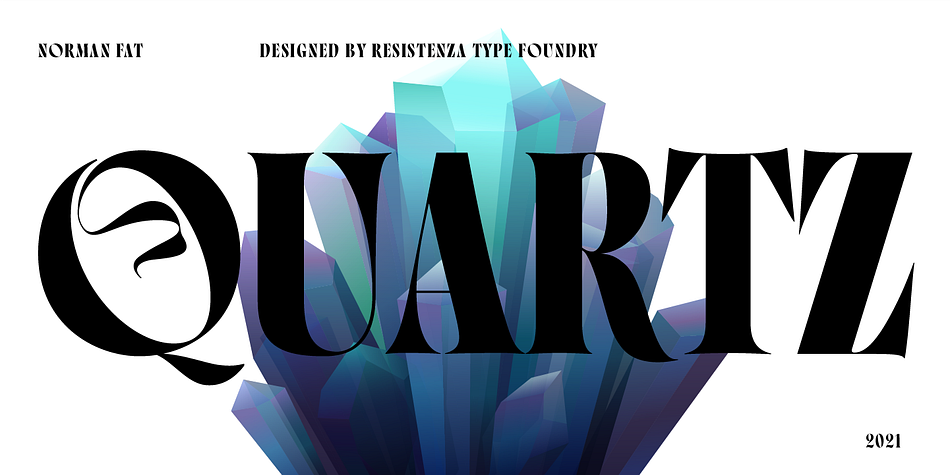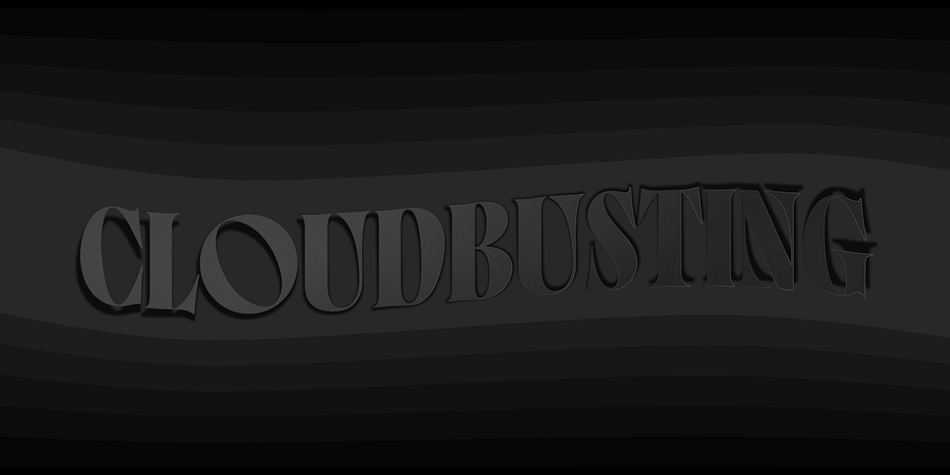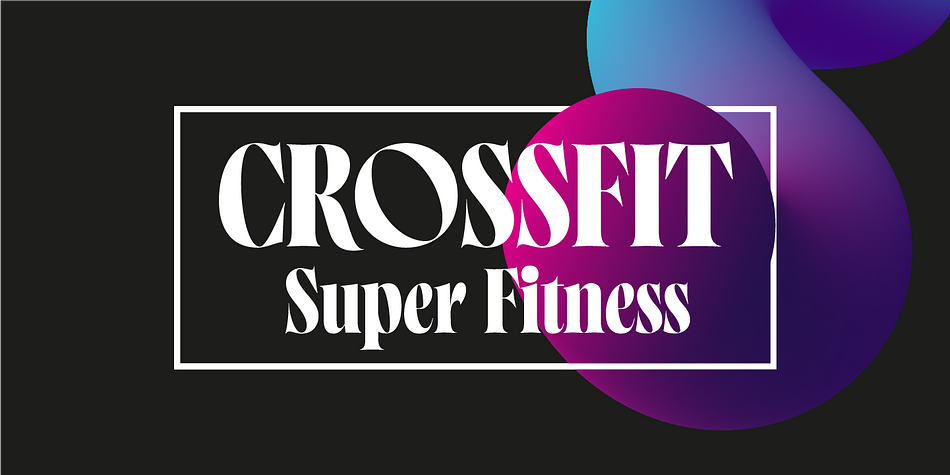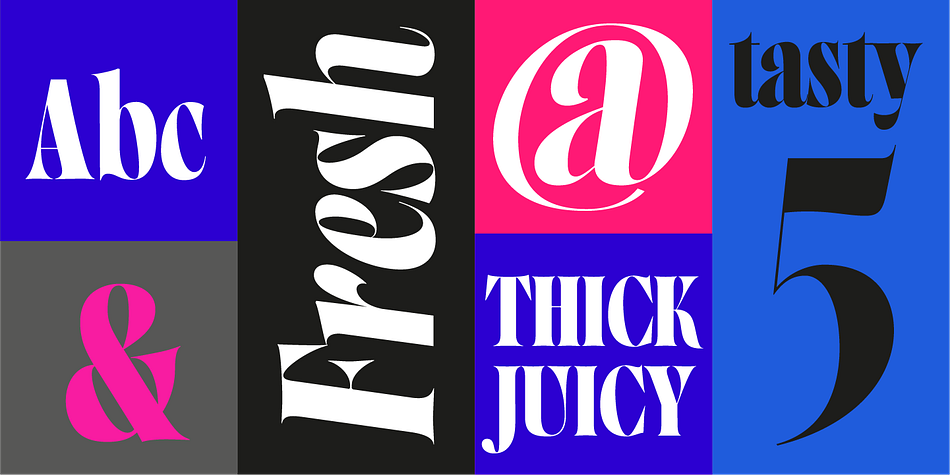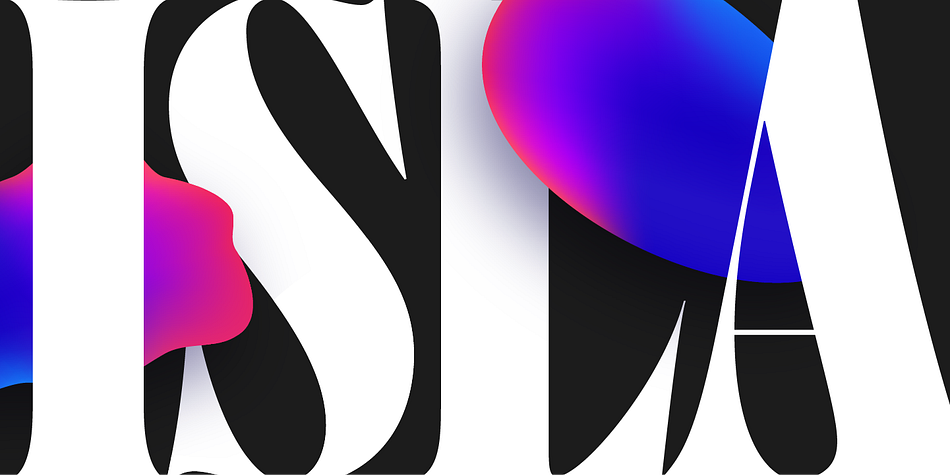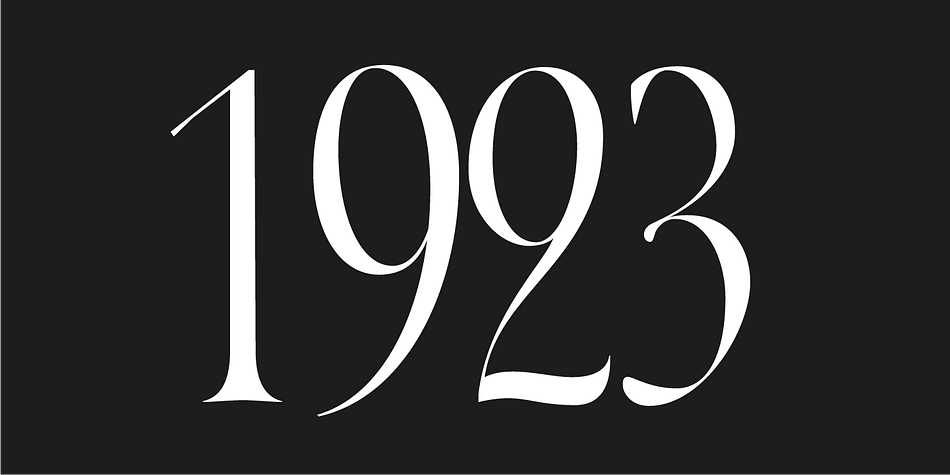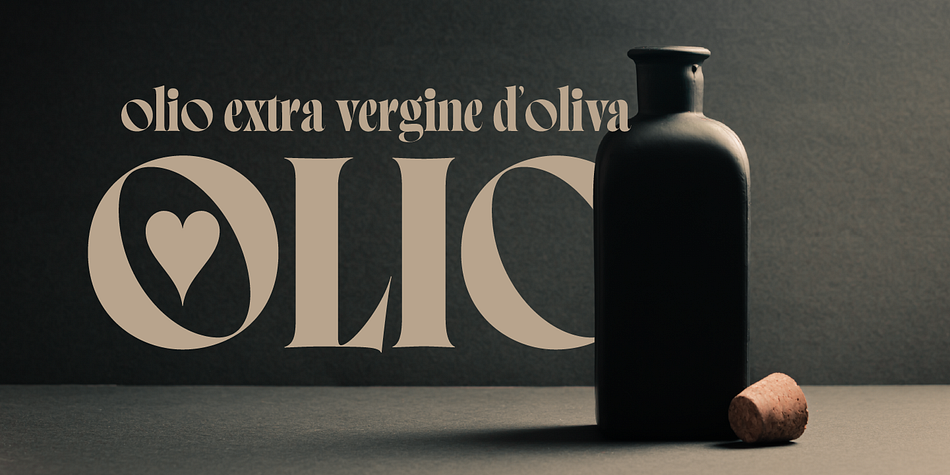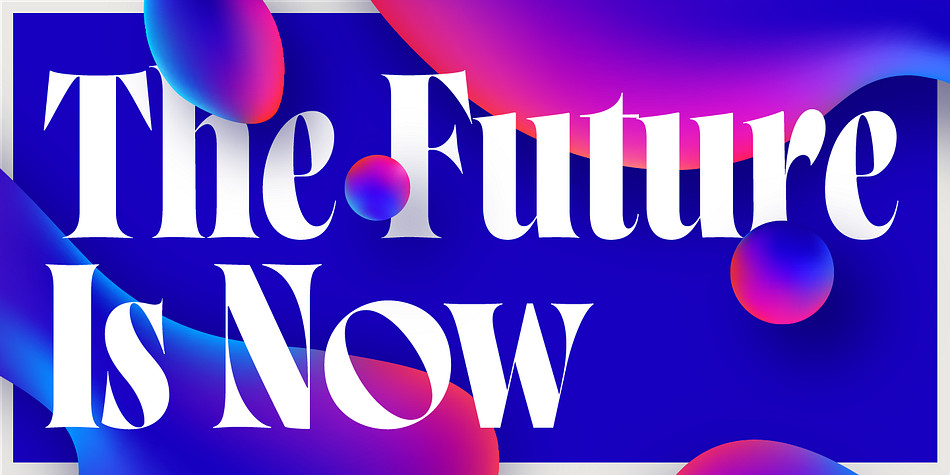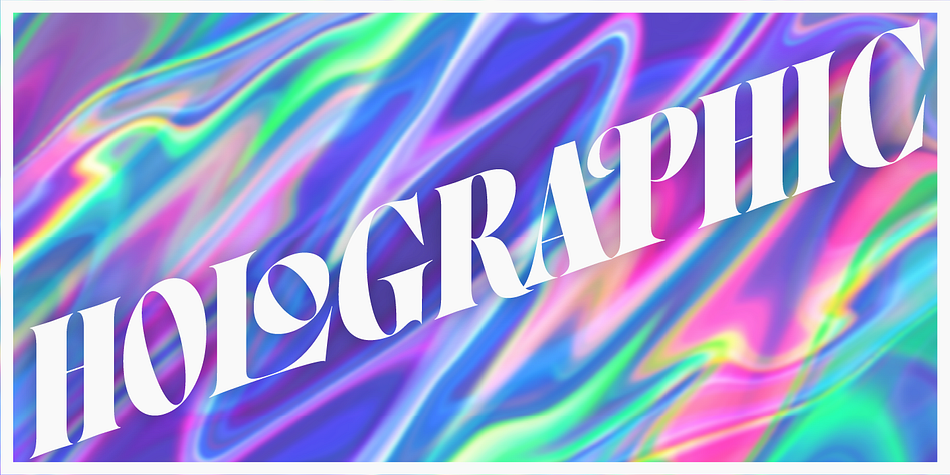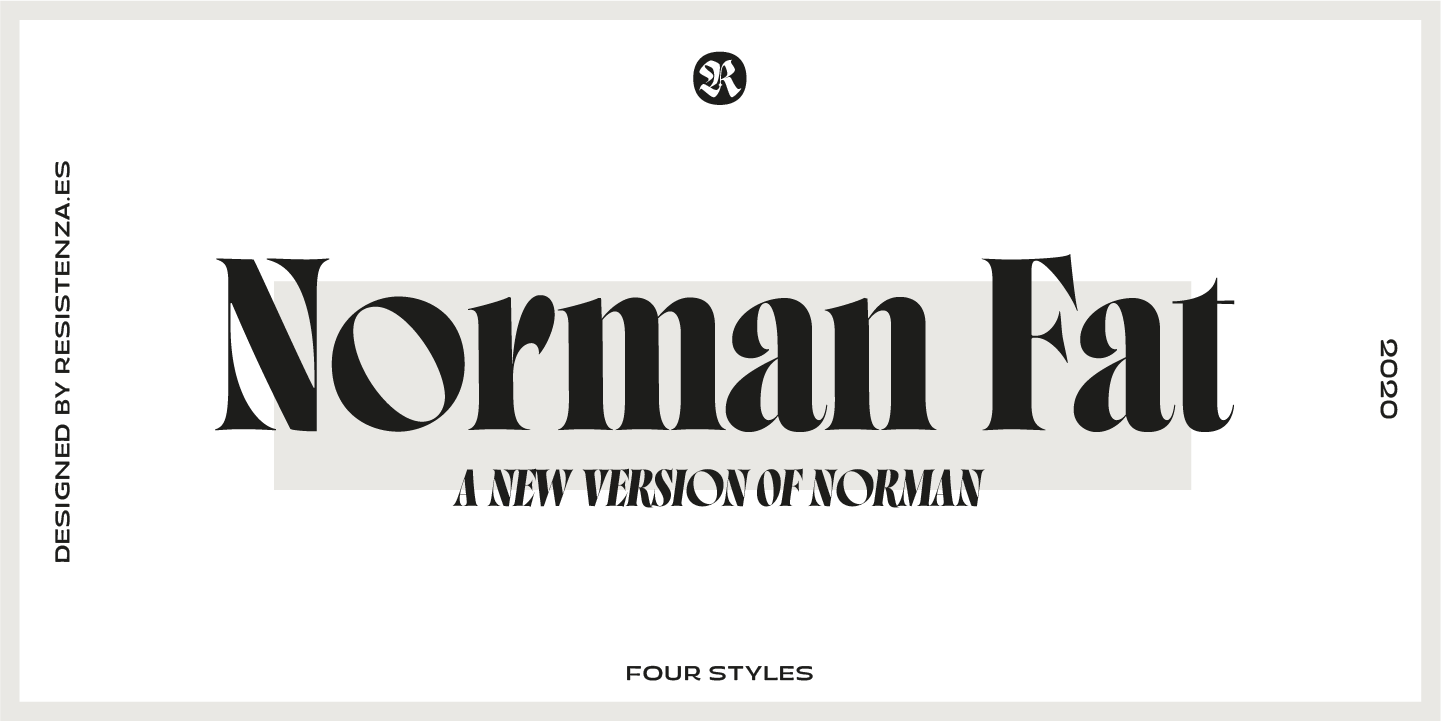
Designed by Giuseppe Salerno, Norman Fat is a display serif and serif font family. This typeface has four styles and was published by Resistenza.es.
Get to know Norman, elegant and fashion forward. This new condensed and high contrast serif font is based on expansion giving a sense of self confidence. The oblique ax was specially added to get a contemporary and innovative sense. Norman is young and idealist, he has a distinctive sense of style. A complete set of ligatures and stylistic alternates is included, this will help the designer to customize and give a special look to any layout. We recommend to use it for big title, magazine, editorial purposes and display.